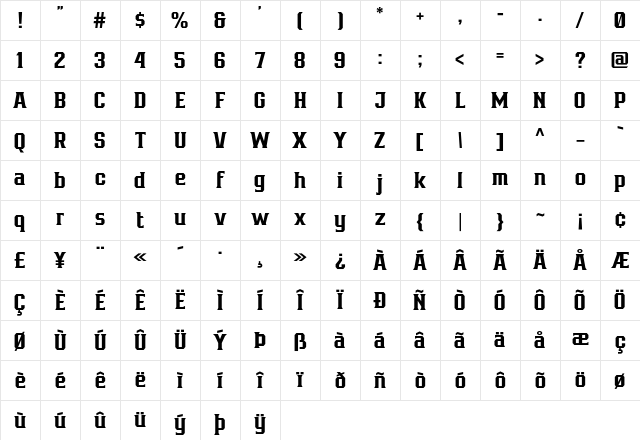
Bronzier Medium Free Font
Bronzier Medium
Foundry: Arterfak Project
Designer: Ahmad Ramzi Fahruddin
Design Context for Bronzier
Bronzier is a composed and adaptable typeface that performs quietly and consistently across a wide range of design contexts.